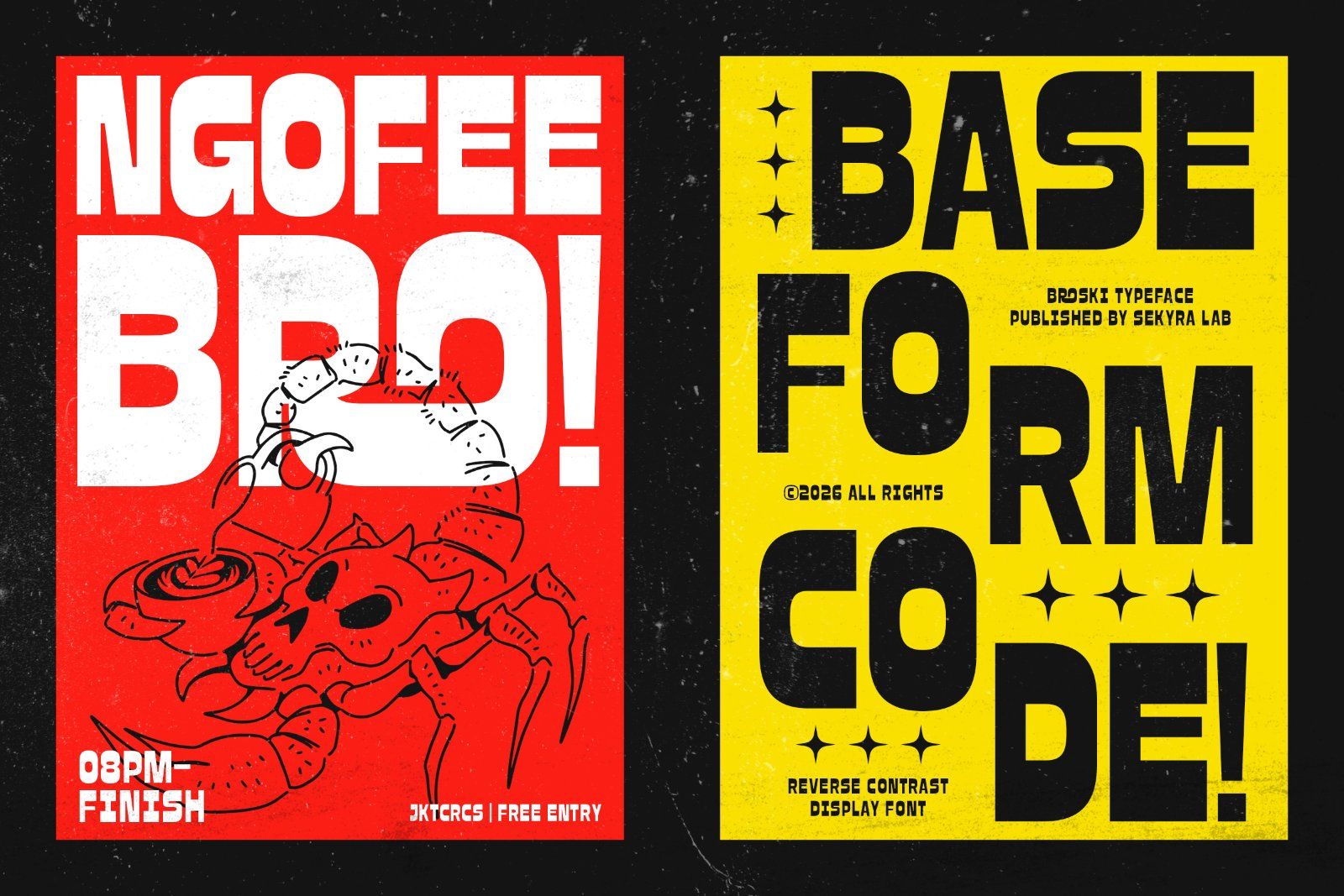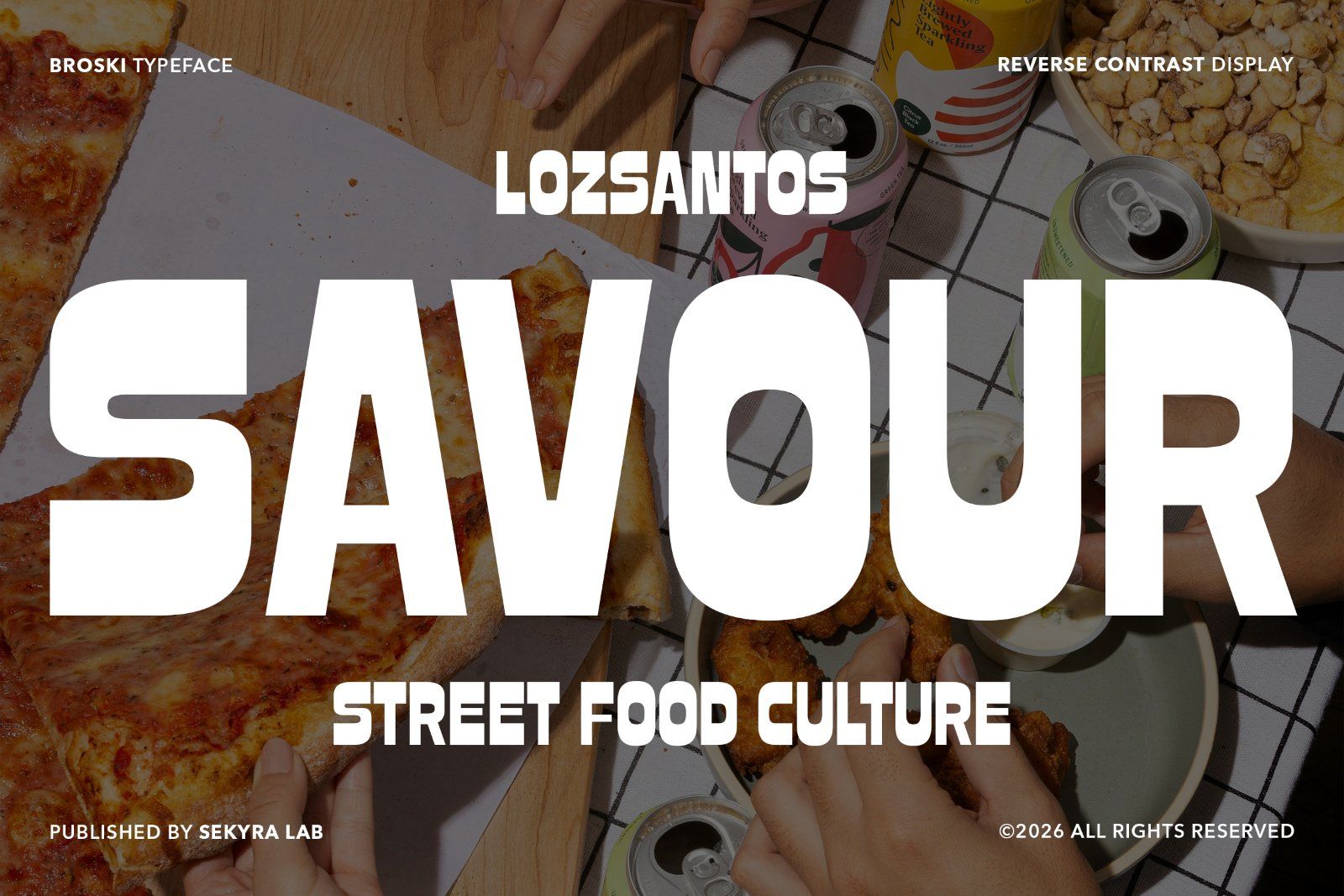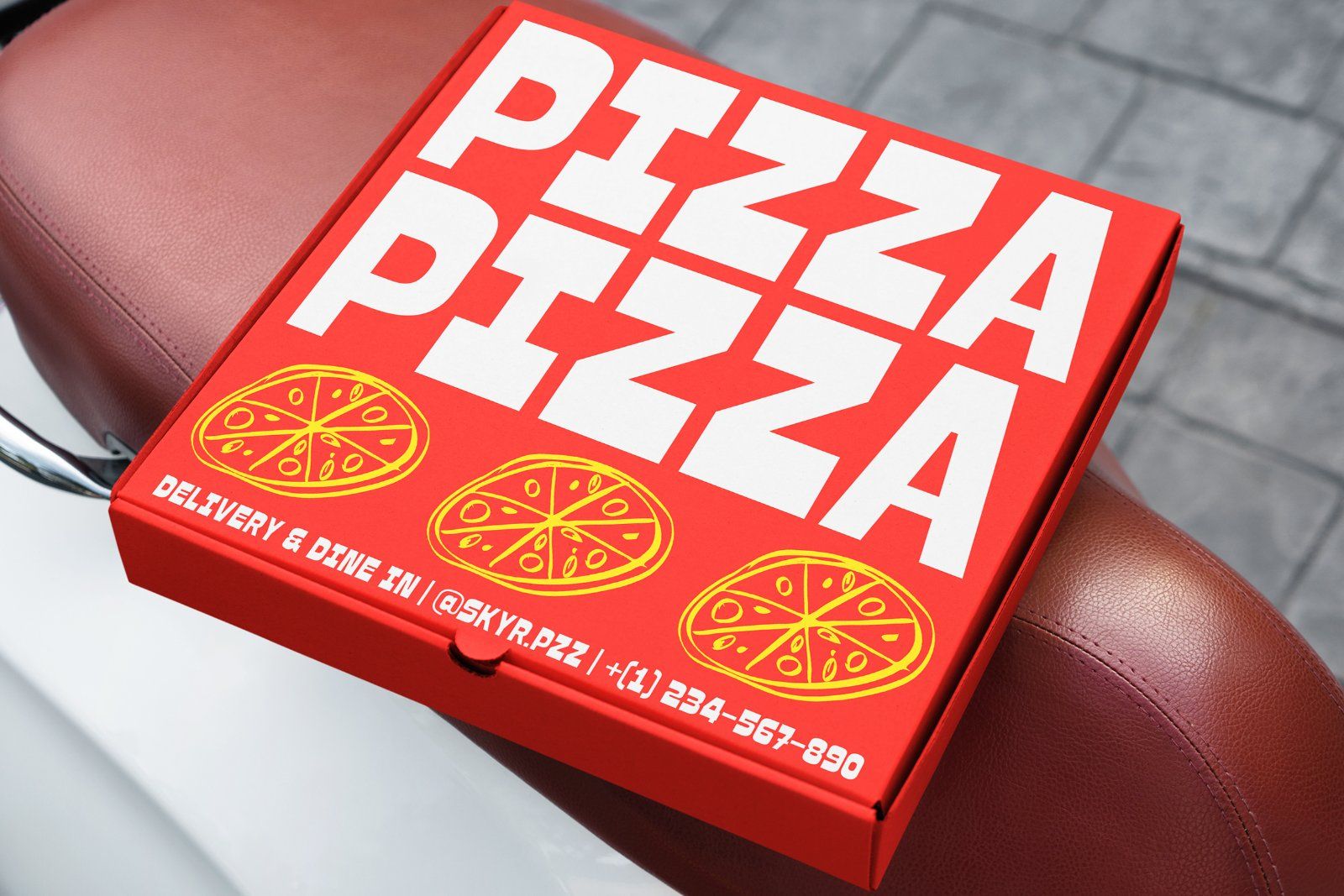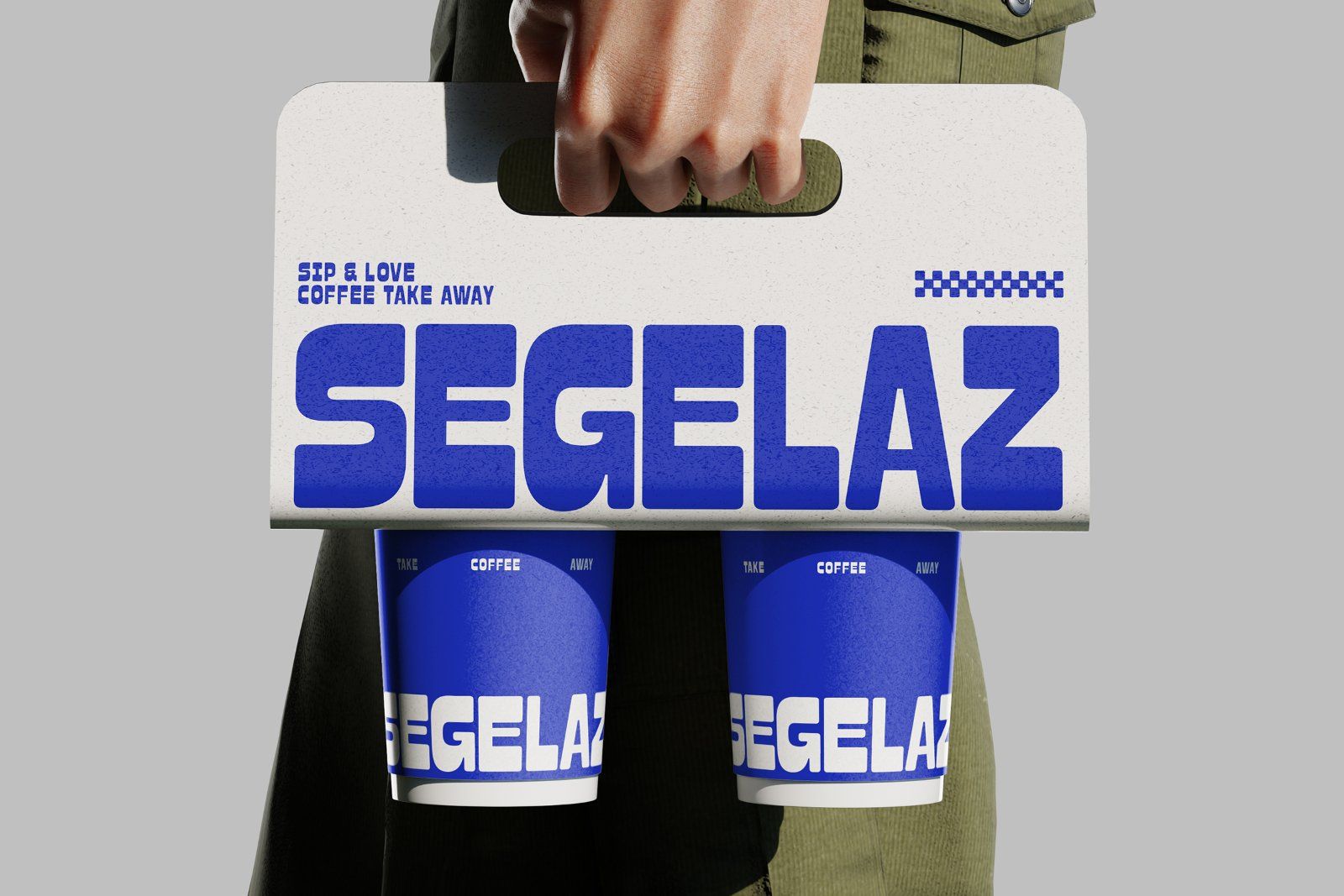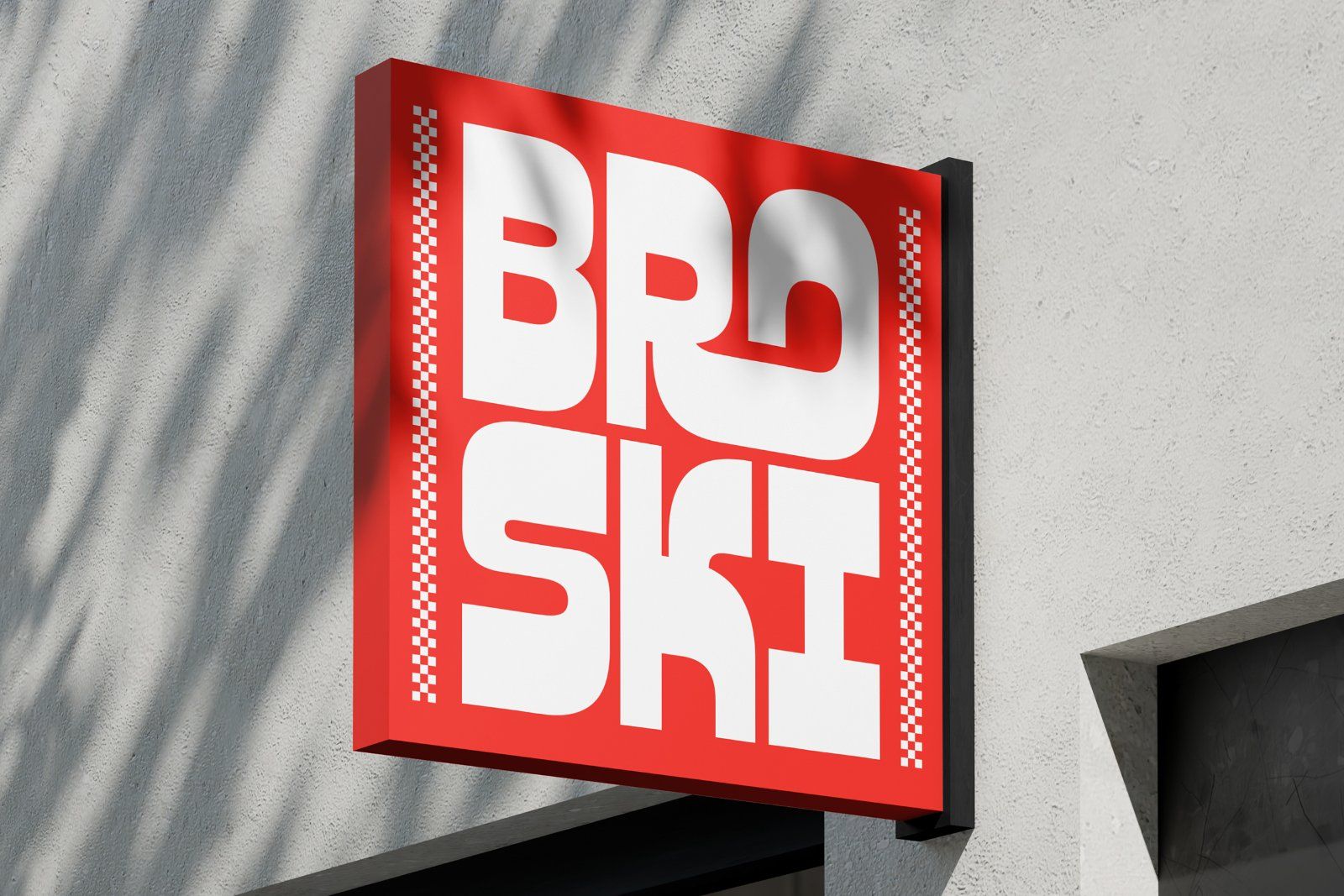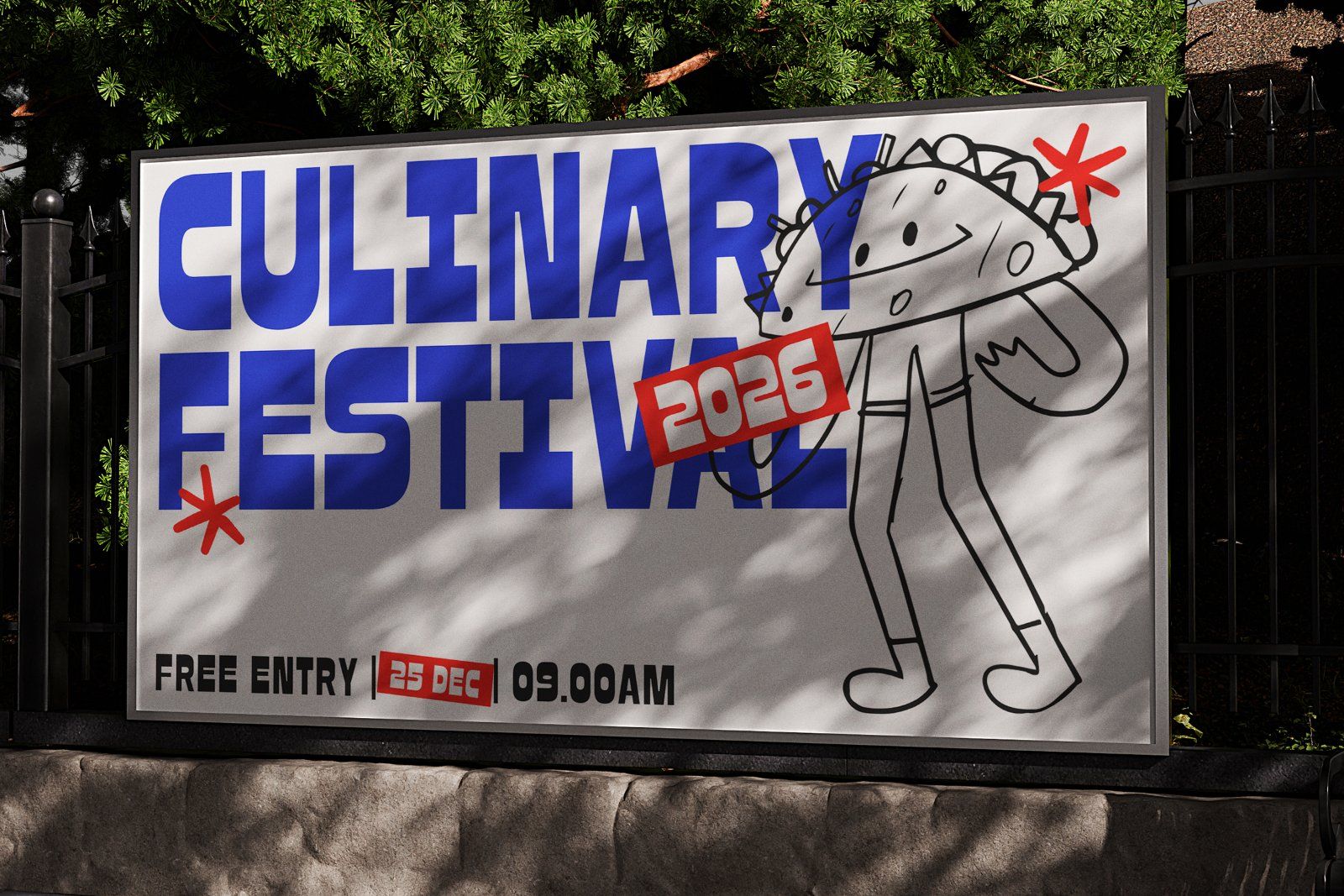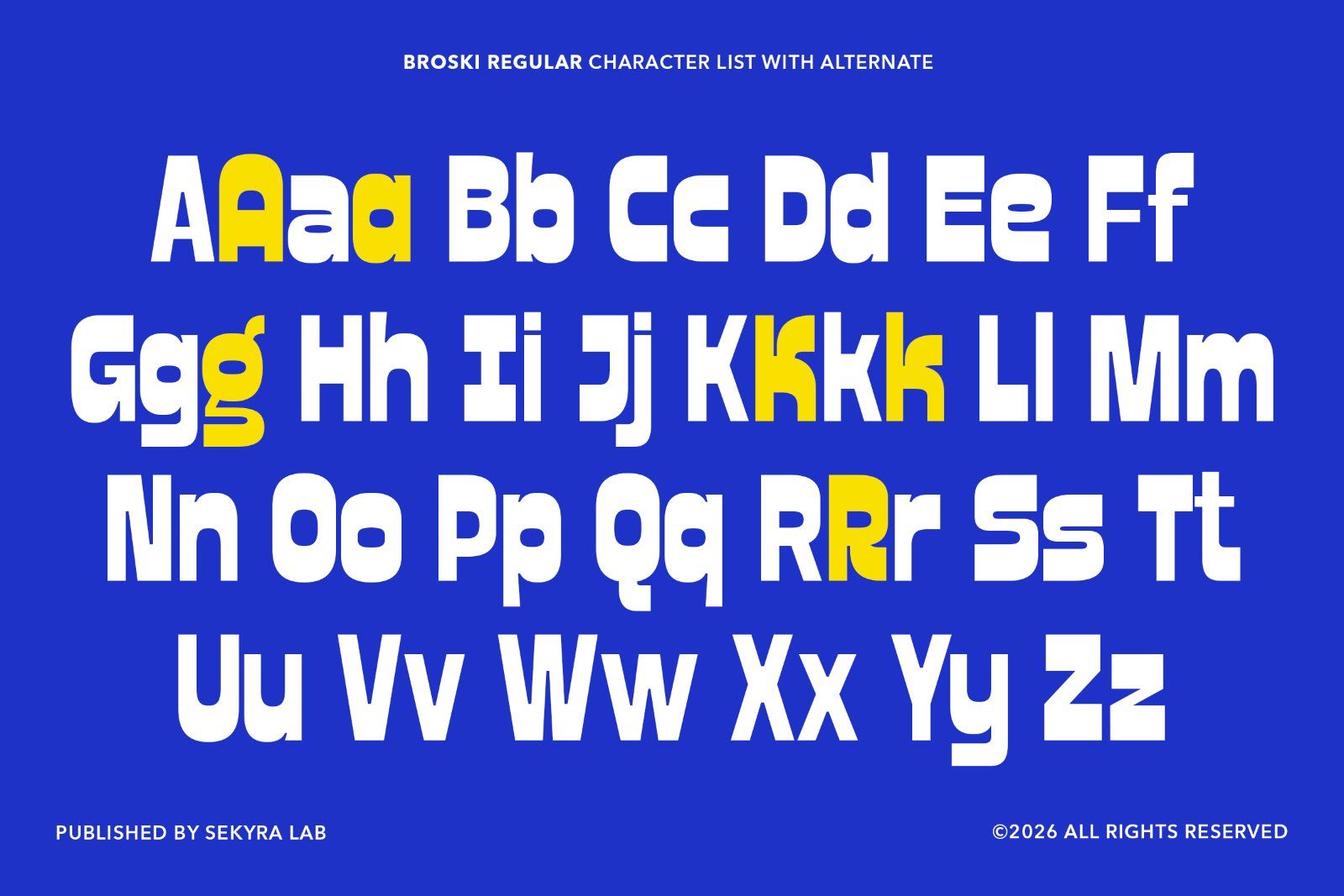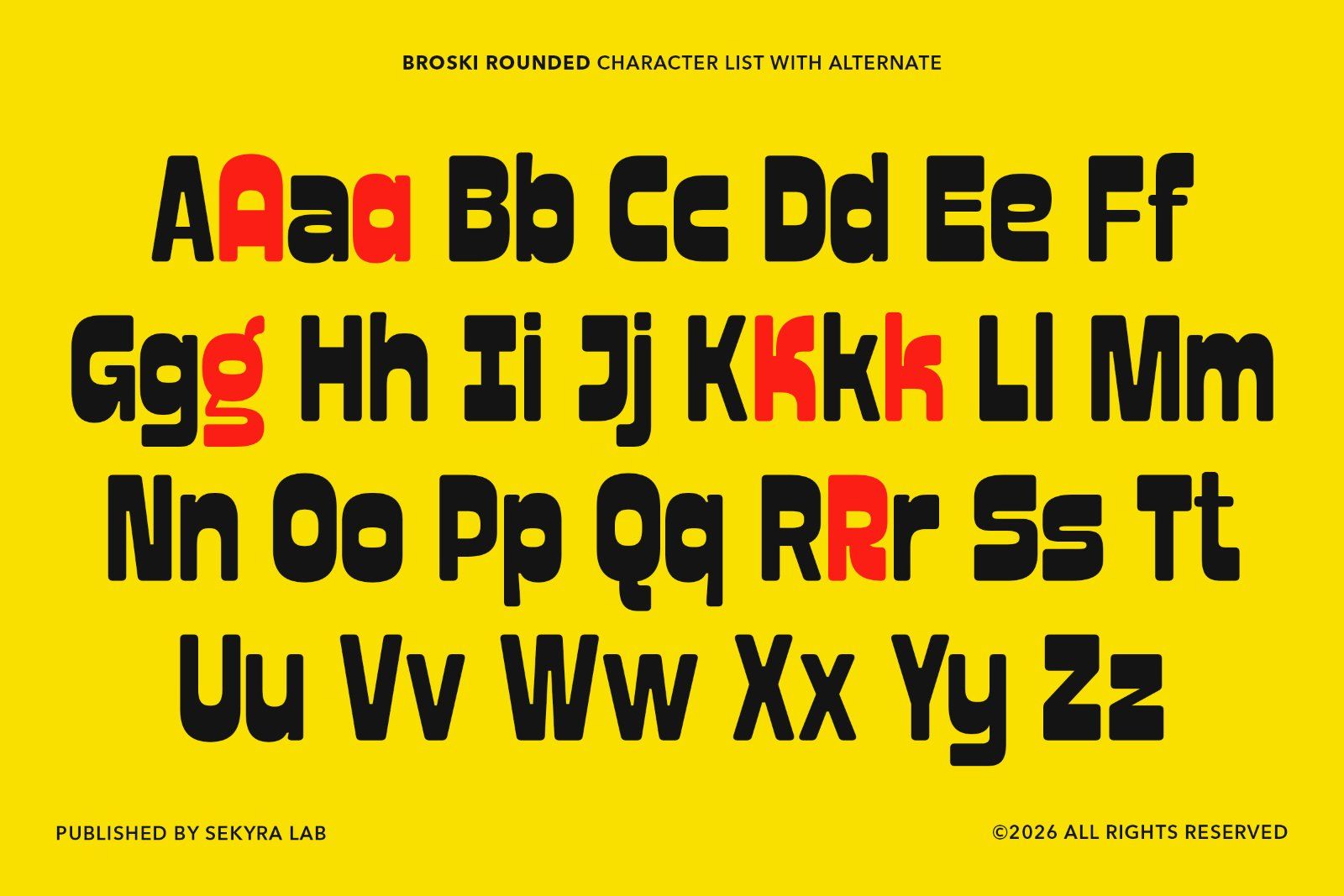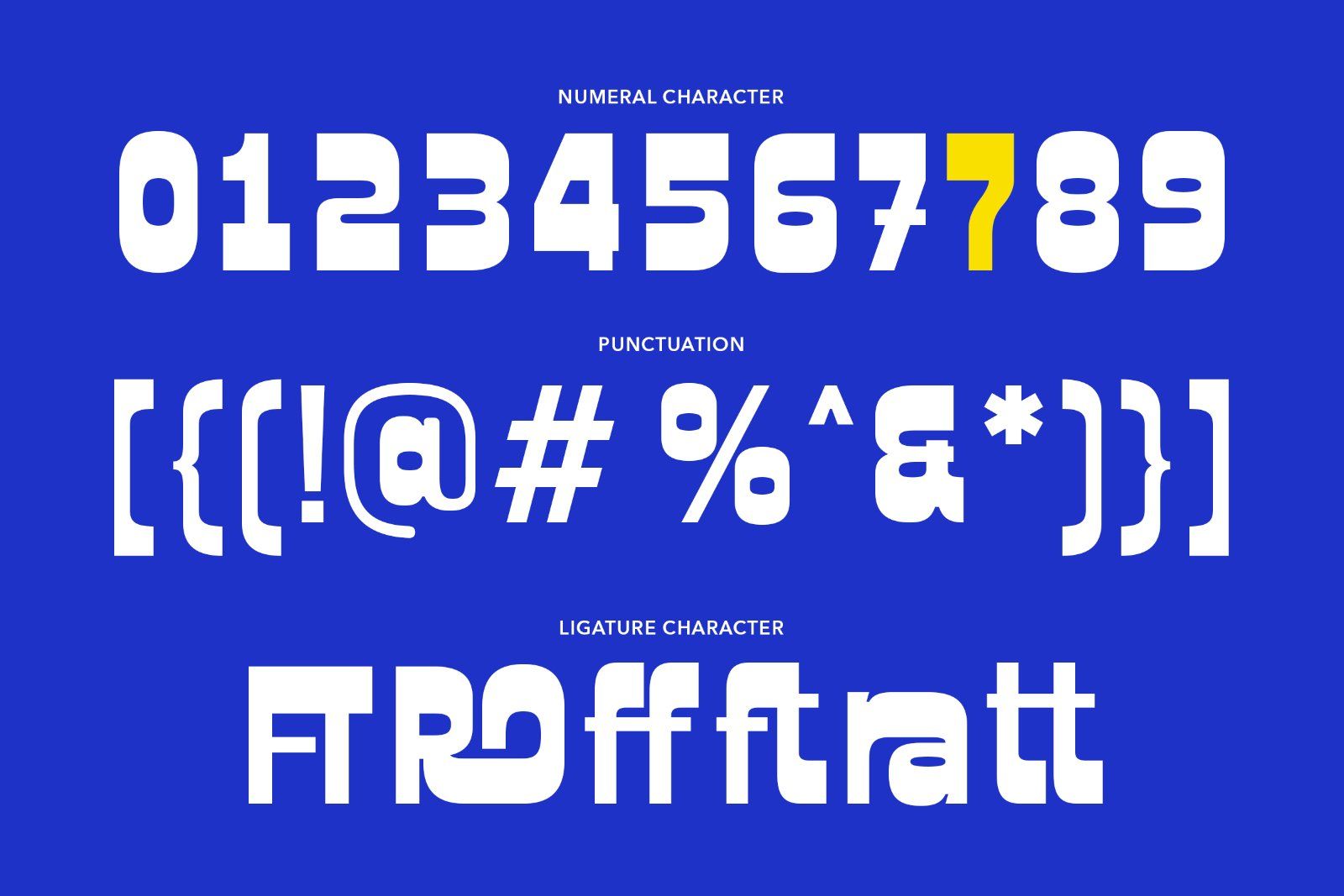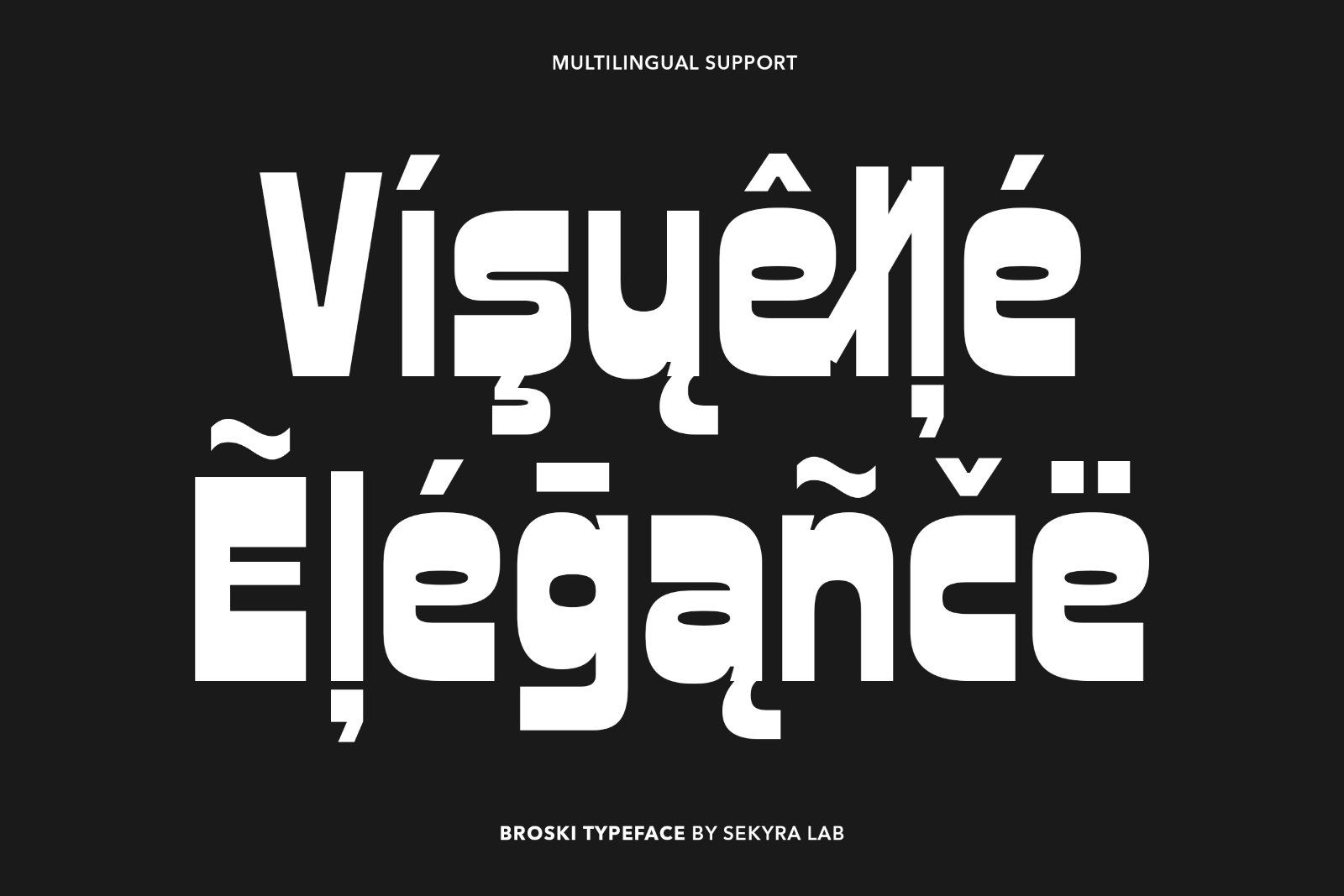
Broski is a bold reverse contrast display font designed with strong visual impact and playful vintage character. Inspired by classic wood type and retro poster typography, this typeface features thick horizontal strokes and slimmer verticals, creating a distinctive reverse contrast structure that immediately grabs attention.
The font comes in two distinct styles: Regular and Rounded, giving you flexibility for different visual moods. The Regular style delivers a sharp, bold presence perfect for strong headlines, while the Rounded style softens the forms for a friendlier and more playful look.
Its wide proportions and chunky shapes make Broski perfect for large-scale typography where personality and readability are equally important. The font also includes alternate characters, allowing more dynamic typographic compositions. With its retro-inspired structure and modern graphic balance, Broski works perfectly across both vintage and contemporary design projects.
Features
• Support for 93 languages
• 2 Styles (Regular, Rounded)